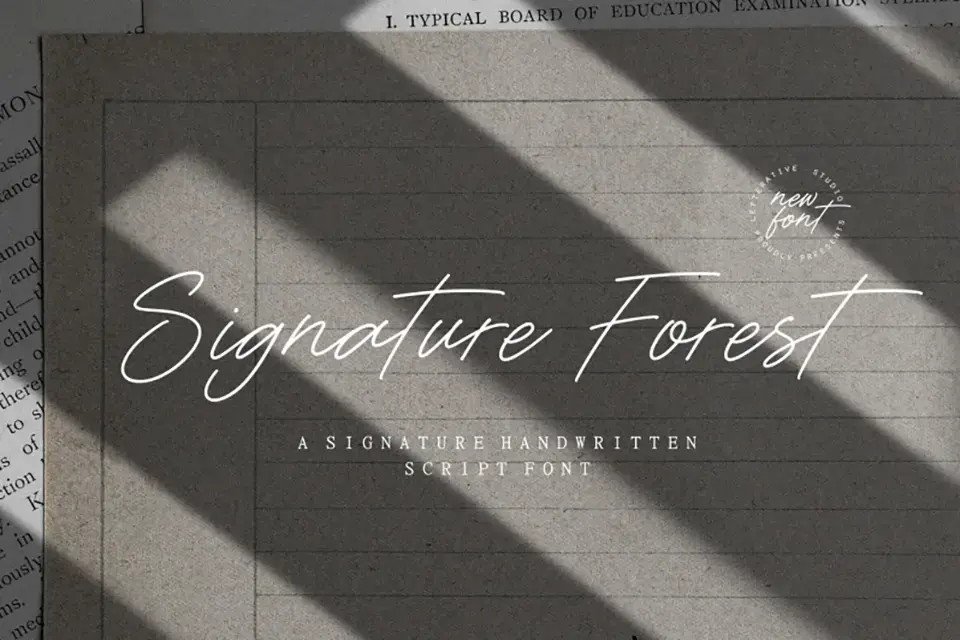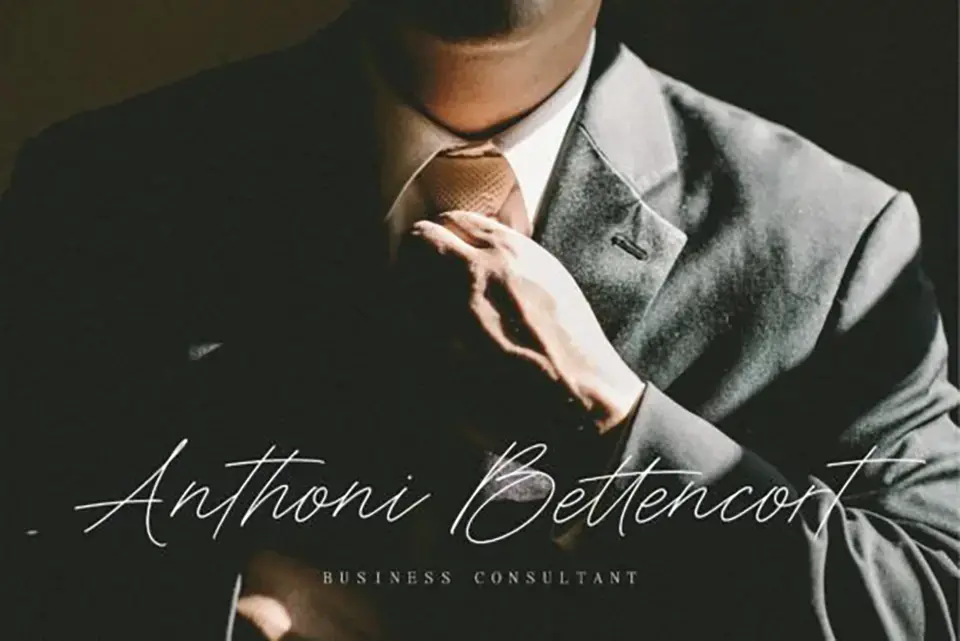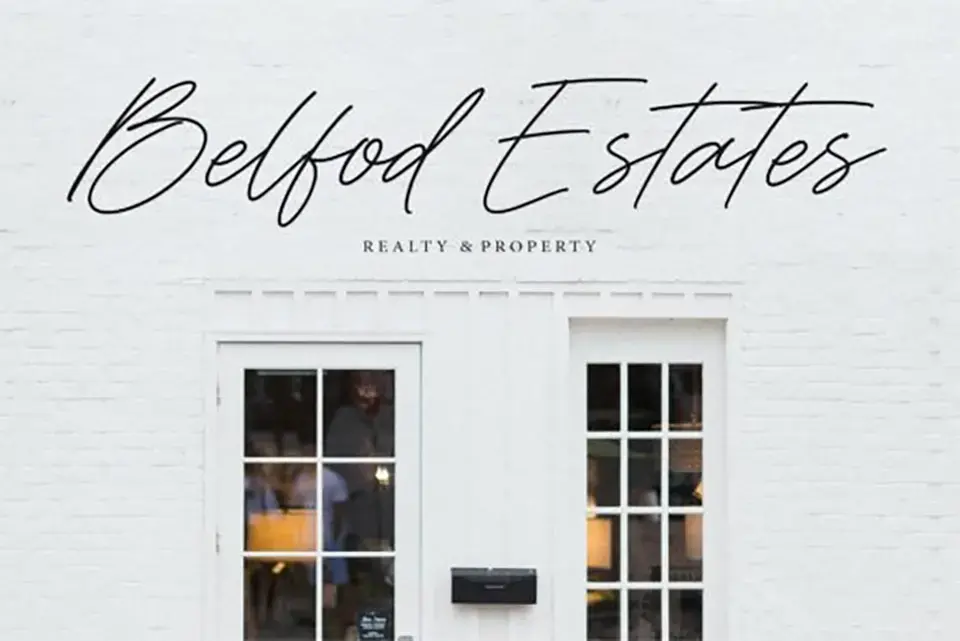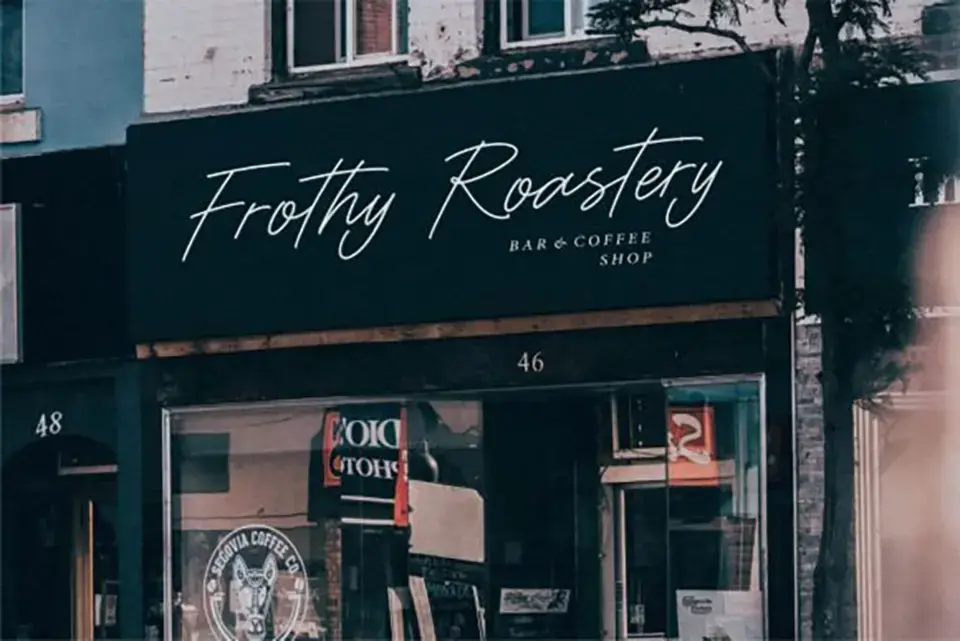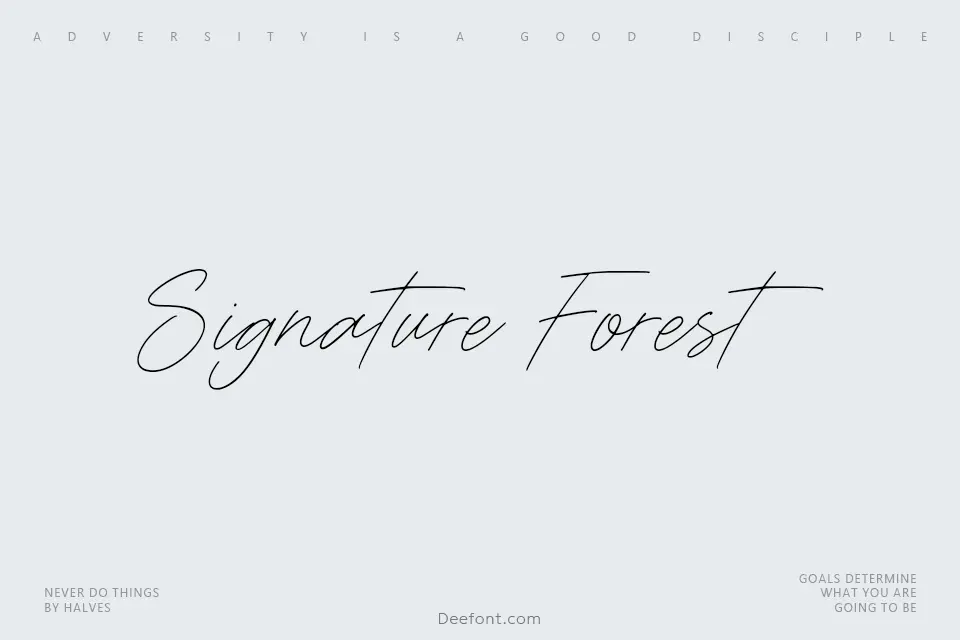
Signature Forest Font
Signature Forest is a sophisticated monoline signature handwritten script font designed for modern creative projects. Its flowing, organic strokes deliver authentic personal flair ideal for branding, invitations, business cards, and packaging. With smooth letterforms and natural rhythm, this font combines contemporary elegance with artisanal warmth, making it perfect for posters, book covers, and stationery. The delicate, fluid design complements both vintage and modern aesthetics, lending timeless charm to any professional or personal project.